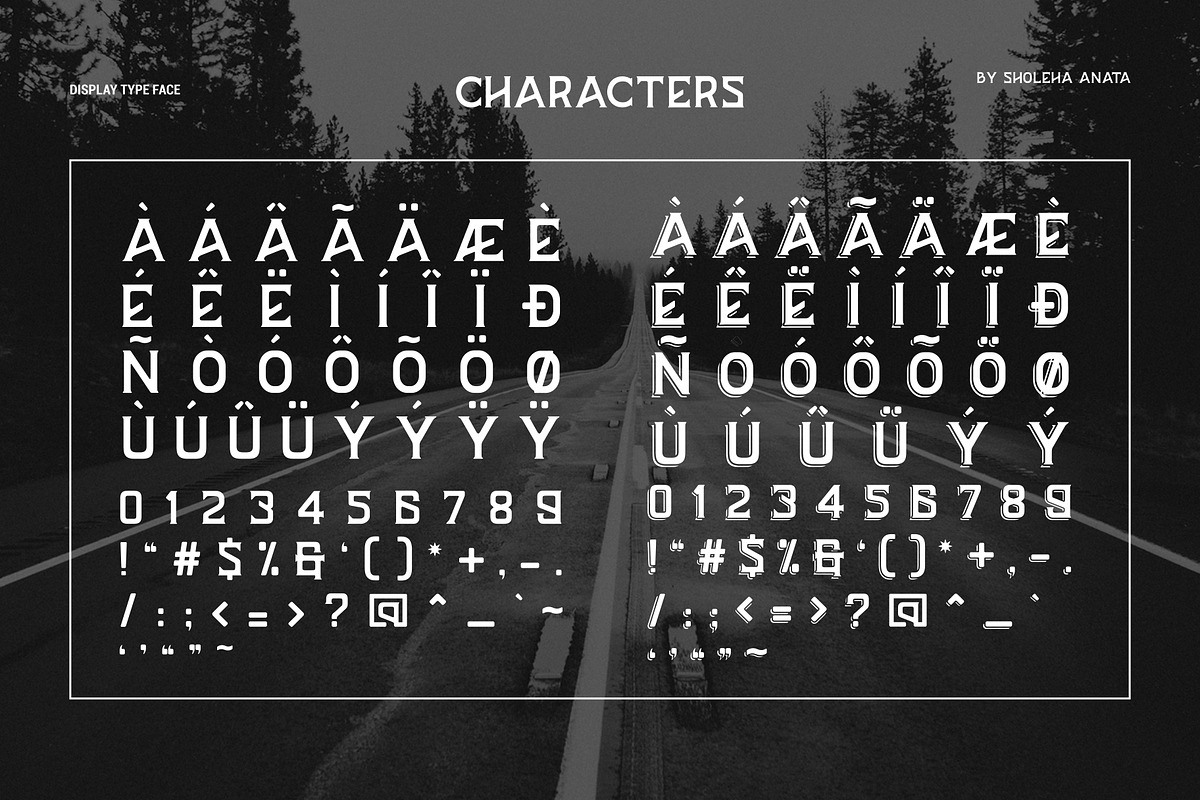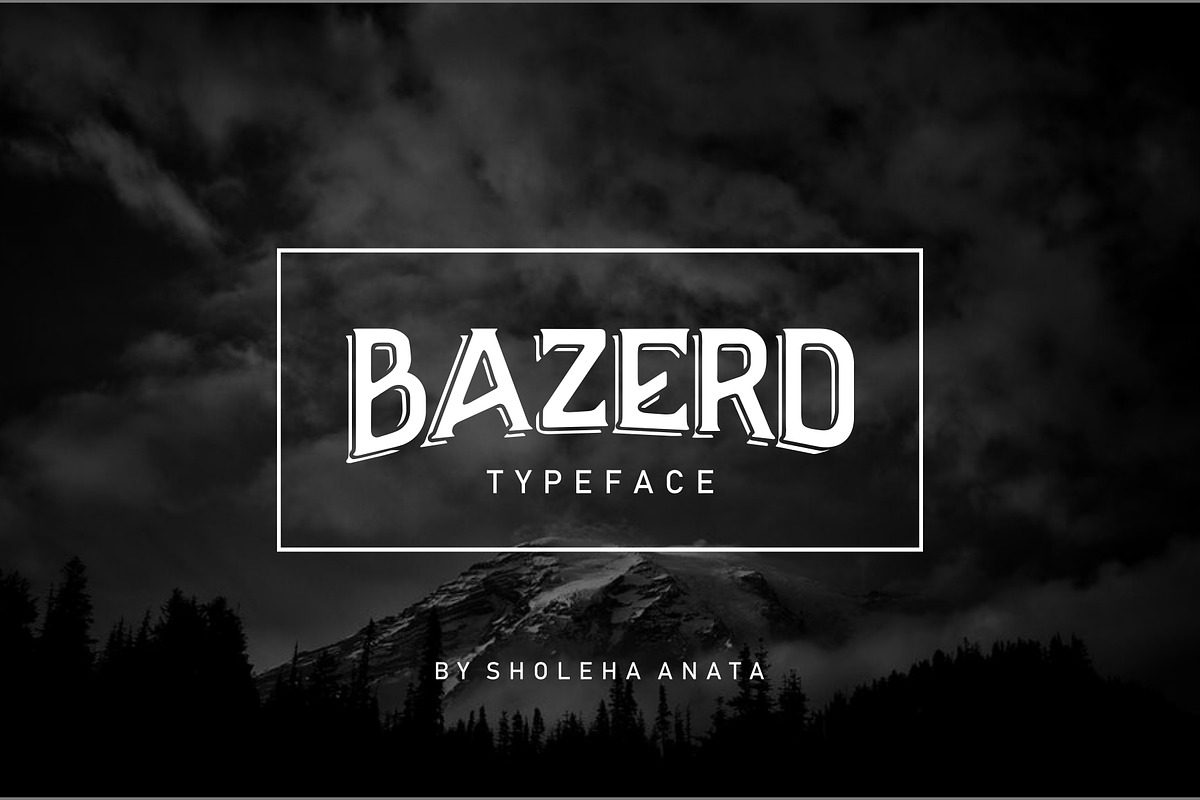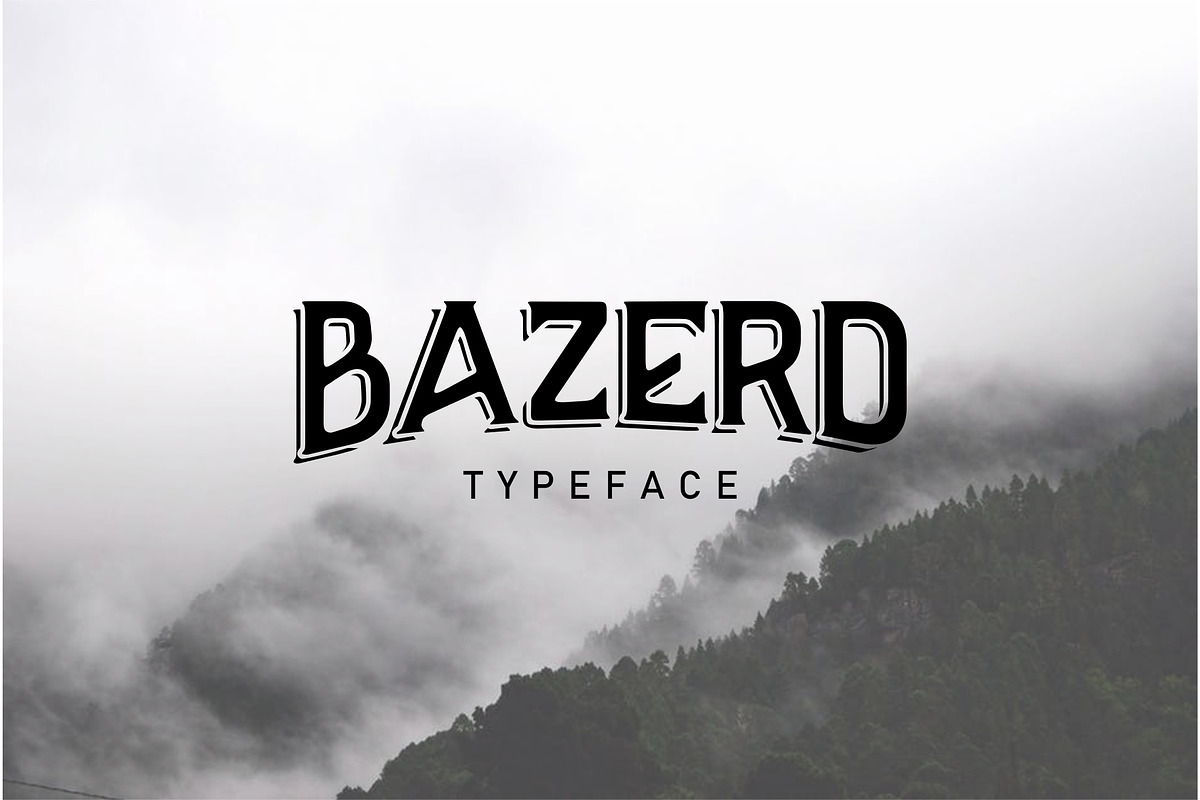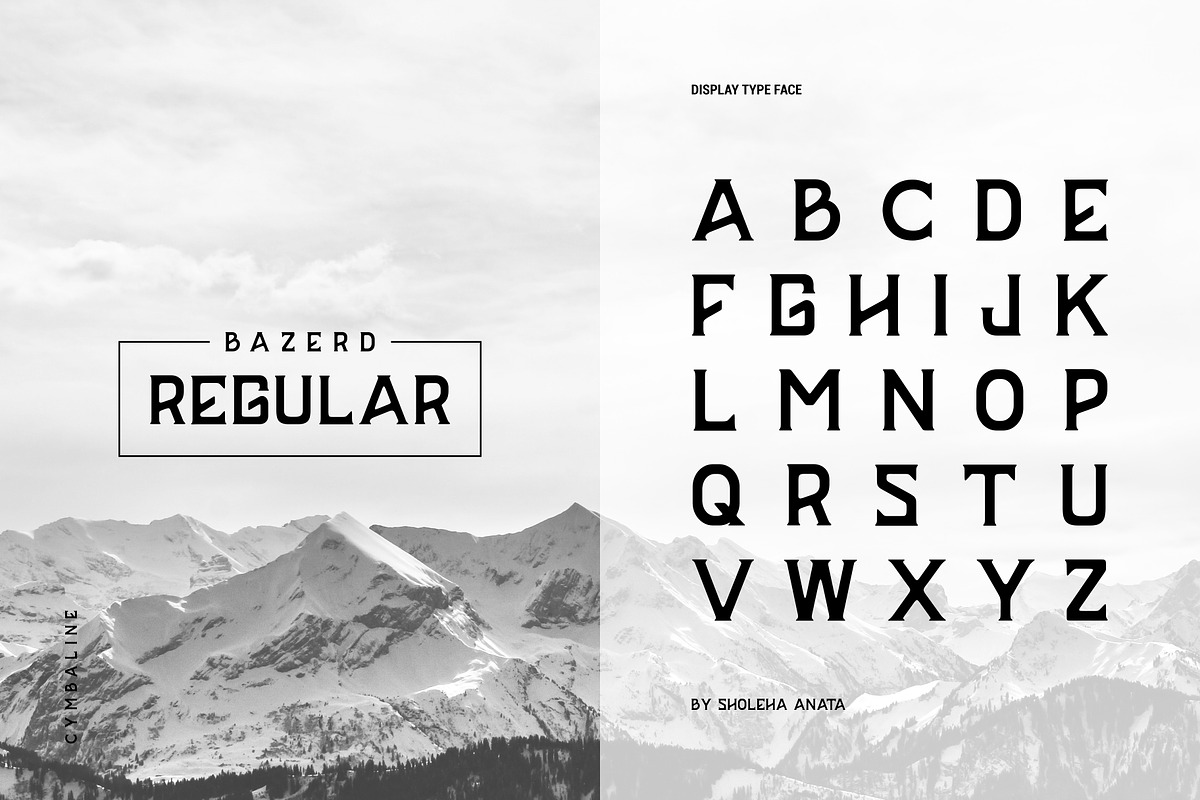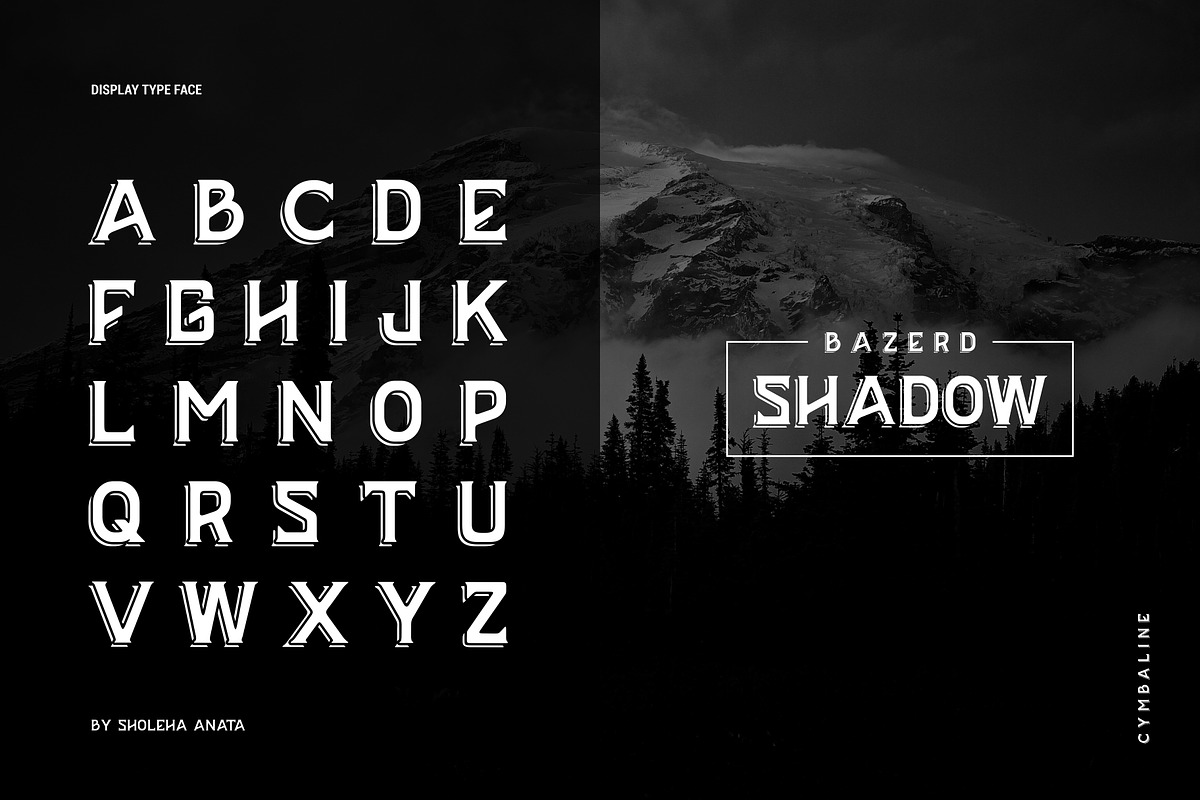
BAZERD - Typeface
BAZERD is a display font with strong and bold vibes. It comes with 2 different style, BAZERD REGULAR and BAZERD SHADOW.
Perfect for retro or classic logos, titles, web layouts and branding. It looks outstanding in all caps with a wide-set spacing if you want to try a cinematography look.
- It comes with 2 different style, BAZERD REGULAR and BAZERD SHADOW.